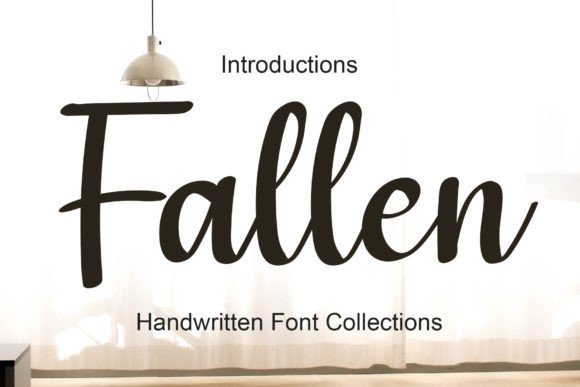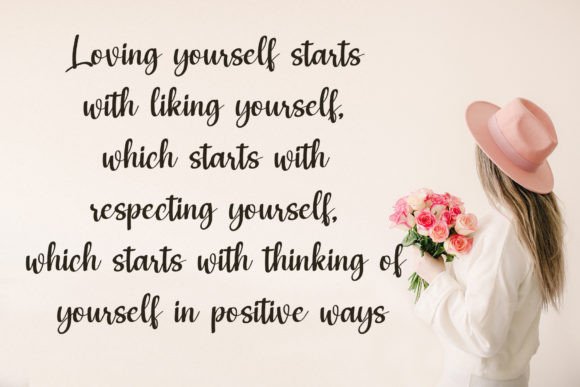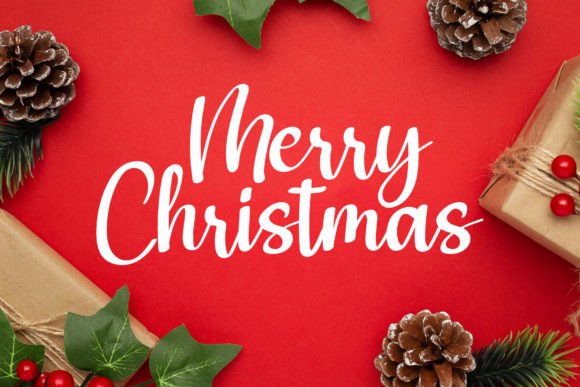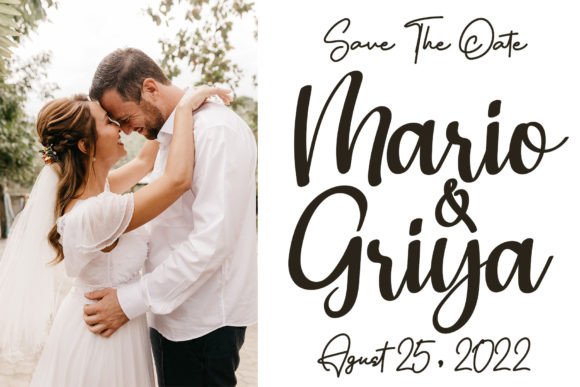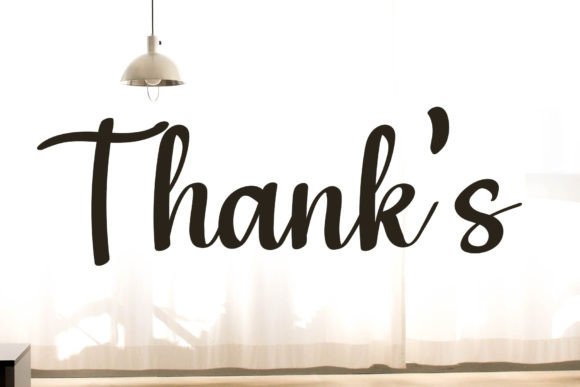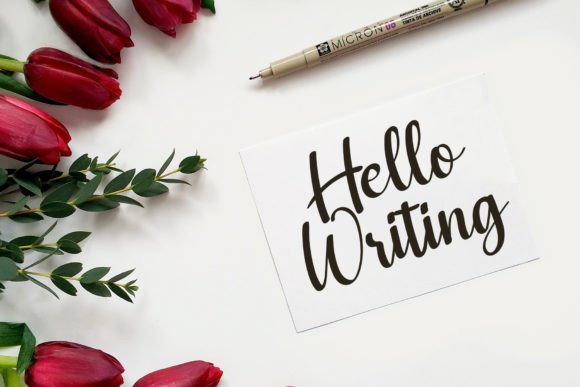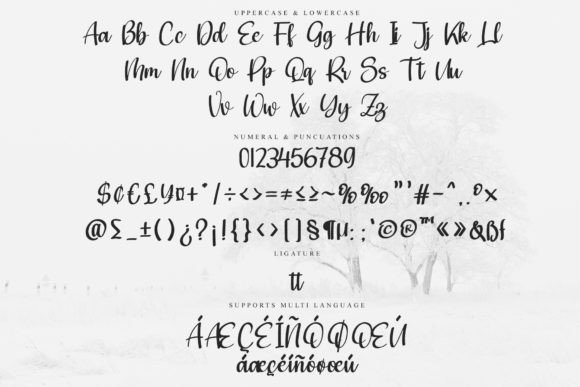
Fallen Font
About Fallen Font
“Fallen” is a playful and stylish handwritten font that embodies a youthful and spirited charm. This versatile font is well-suited for a wide range of projects, both professional and casual, allowing you to infuse a sense of personality and creativity into your designs. Whether you’re working on branding designs, labels, websites, business cards, packaging, posters, flyers, quotes, social media posts, invitations, special occasion cards, or any other creative endeavor, “Fallen” offers a vibrant and engaging style. Here are some key features and potential uses for the “Fallen” font:
1. **Playful and Stylish:** “Fallen” brings a playful and stylish vibe to your designs, making it an excellent choice when you want to convey a youthful and creative spirit.
2. **Professional Projects:** Despite its playful nature, this font can be used for professional-looking projects, including branding designs, labels, business cards, and websites. It can add a touch of personality to your professional materials.
3. **Casual Designs:** “Fallen” is equally suitable for casual designs such as packaging, posters, flyers, and social media posts. It adds a lively and approachable quality to these materials.
4. **Typography for Quotes:** When applied to quotes, “Fallen” can make your inspirational or motivational messages more visually appealing and engaging.
5. **Special Occasions:** Use this font for special occasions like invitations, greeting cards, and event materials to create a fun and festive atmosphere.
6. **Versatile Usage:** The font’s versatility allows it to adapt to various design contexts, ensuring that it can complement a wide range of creative projects.
In summary, “Fallen” is a font that brings a youthful and spirited touch to your designs. Its playful and stylish qualities make it a valuable tool for designers and individuals looking to infuse their projects with creativity and a sense of fun. Whether your project is professional or casual, “Fallen” can help you achieve a vibrant and engaging look that resonates with your audience.